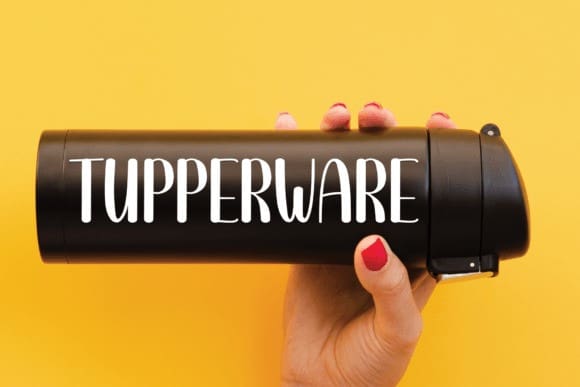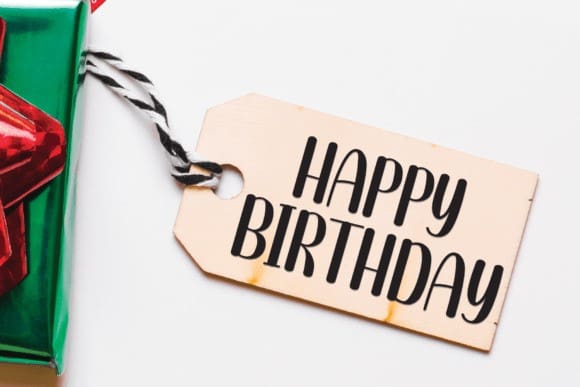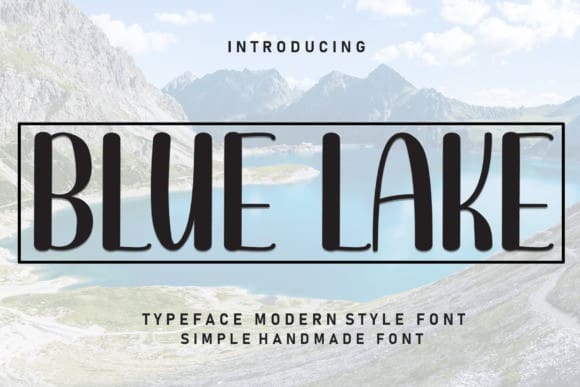
Blue Lake Font
Blue Lake Font is a sweet and friendly handwritten font. Fresh and casual, this font is ideal for writing wedding invitations, cards, or any other design that might need a lovely touch.